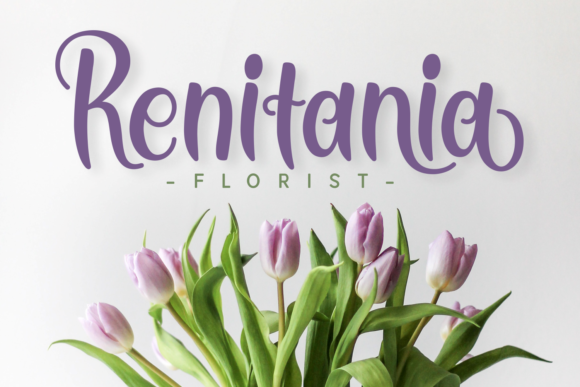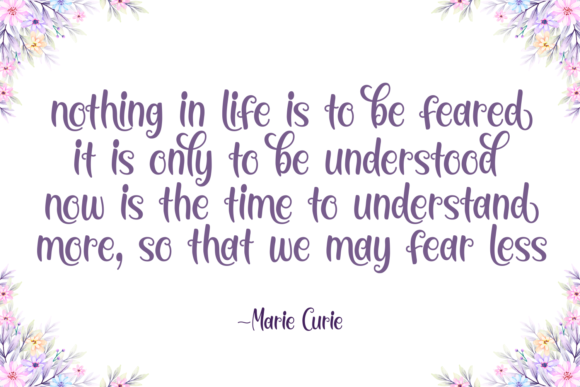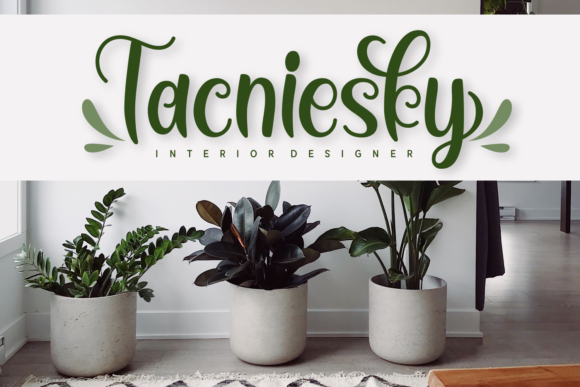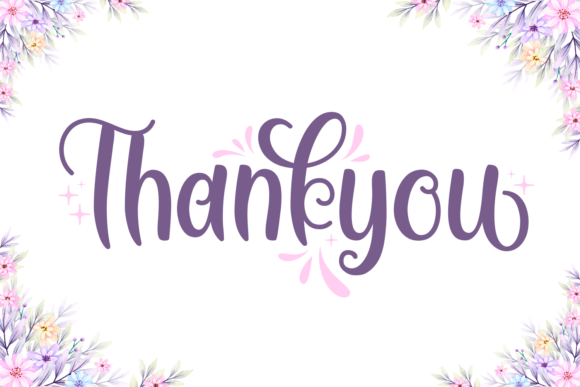
Introduction to Lowla Font
Remember that moment when you’re brainstorming a creative project, and the perfect font suddenly pops into your mind? For many designers, it’s the spark that ignites the entire design process. And for those who’ve worked with the Lowla Font, that moment is all too familiar.
Lowla Font is more than just a font – it’s a design resource that adds a touch of elegance and sophistication to any project. Its delicate, handwritten style makes it perfect for wedding invitations, thank you cards, quotes, and logos, but its versatility extends far beyond those applications.
Whether you’re a seasoned designer or just starting out, the Lowla Font is an invaluable addition to your design toolkit. With its high-quality design and transparent background, it’s a free download that’s sure to elevate your creative projects to the next level.
Key Features of Lowla Font
- High-quality font with a transparent background, perfect for creative projects that require a clean and modern aesthetic.
- Designed with a minimalist approach, making it ideal for use in logos, branding, and other creative projects.
- Perfect for designers and artists looking for a unique and versatile font to elevate their creative project.
Honest Review: Lowla Font
As a designer, I’m always on the lookout for high-quality design resources to elevate my creative projects. Recently, I stumbled upon the Lowla Font, and I must say it’s been a game-changer for me.
Here are some aspects that I appreciate about the Lowla Font: ✨
- Its transparent background makes it incredibly versatile for use in various design contexts.
- The font is incredibly legible, even at smaller font sizes.
- It’s a great addition to any design resource library, perfect for those who want to add a touch of sophistication to their projects.
However, I do have some reservations about the Lowla Font: ⚠️
- The font family is relatively small, which might limit its use in larger-scale projects.
- Some users might find the font’s style a bit too minimalist for their taste.
Overall, I’m thoroughly impressed with the Lowla Font. Its high quality and creative versatility make it an excellent addition to any designer’s toolkit. The fact that it’s available for free download is just the cherry on top!
Tips for Getting the Most Out of Lowla Font
For a transparent background, use a design program like Canva or Adobe Illustrator to create a background layer and then apply the Lowla Font. This will give your design a clean and modern look. You can also use Lowla Font in combination with other design elements, such as images or graphics, to create a unique and eye-catching design.
Common Use Cases for Lowla Font
Lowla Font is ideal for a variety of creative projects, including branding, marketing materials, and social media graphics. It’s also a great choice for presentations, reports, and documents that require a professional and creative touch.